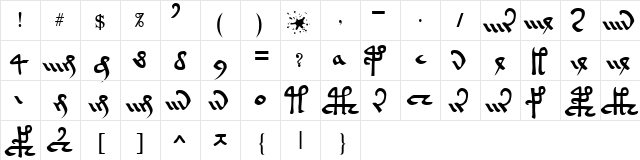
Voynich Currier Hand A Normal
Design Context for Voynich Currier Hand A Typeface
Voynich Currier Hand A flows with the natural rhythm of handwritten lettering, making it ideal for designs that call for warmth and personal expression.
Font Pairing: Combine Voynich Currier Hand A with a simple geometric sans for maximum contrast — the tension between flowing curves and clean structure is a classic typographic pairing.
Pro Tip: Pair Voynich Currier Hand A with a clean sans-serif for supporting text. The contrast between fluid script and geometric structure creates an elegant typographic hierarchy.